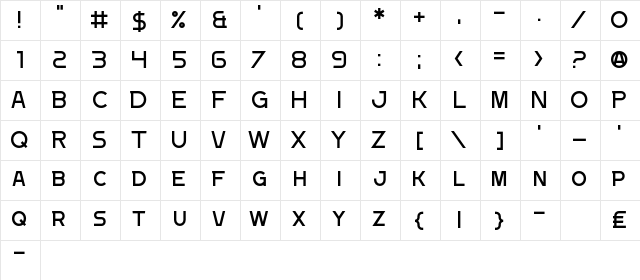
Document Two Regular
Design Context for Document Two Typeface
Document Two is a composed and adaptable typeface that performs quietly and consistently across a wide range of design contexts.